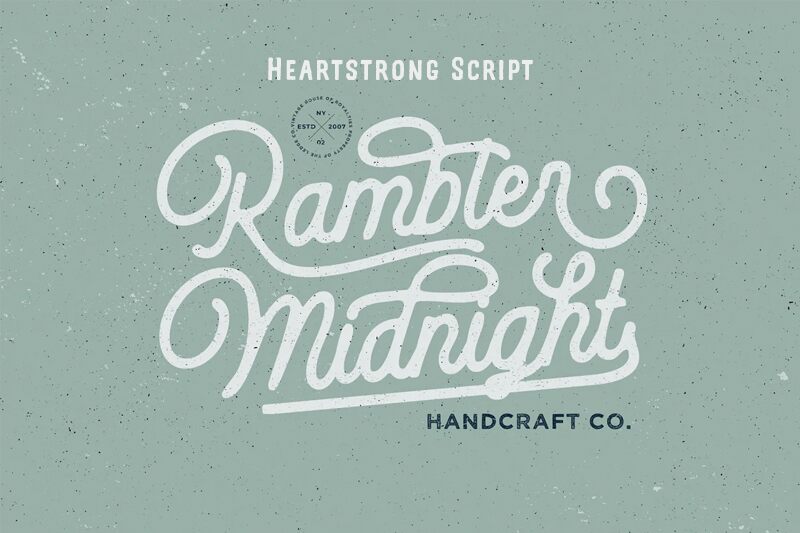
Heartstrong Script Smooth font by Get Studio is a free handwritten script font that writes like a neat, confident signature. Its strokes are even and fluid, with rounded curves and soft joins that keep every word easy to read, even when set smaller. The smooth finish drops the scratchy mess you often get with scripts, giving you warm, personal lettering that still feels polished and brand-ready within the Heartstrong Script family.
Using Heartstrong Script Smooth, you can create charming logos, wedding invitations, product packaging, social media quotes, greeting cards, and handwritten-style tags without losing clarity. The rhythm between letters feels naturally spaced, so lines flow without awkward gaps or collisions. This free font pairs beautifully with a simple geometric sans for body text—set Heartstrong Script Smooth larger for headlines and keep the sans smaller underneath to anchor your layout.